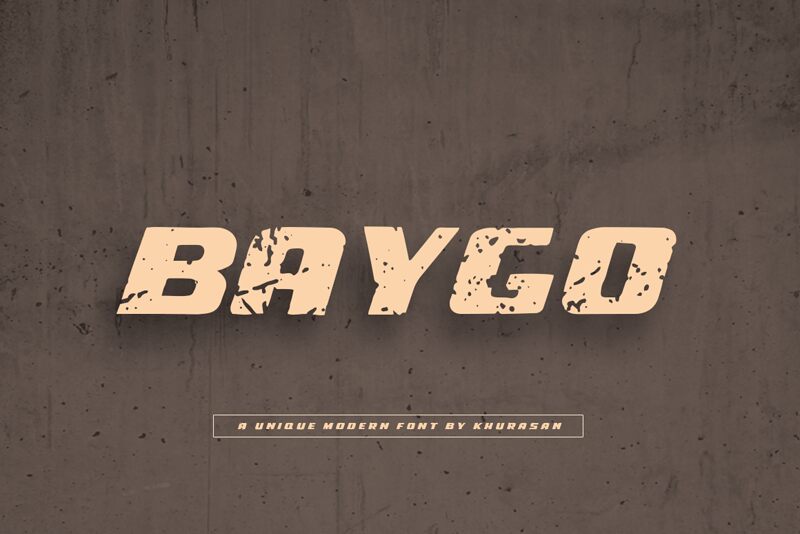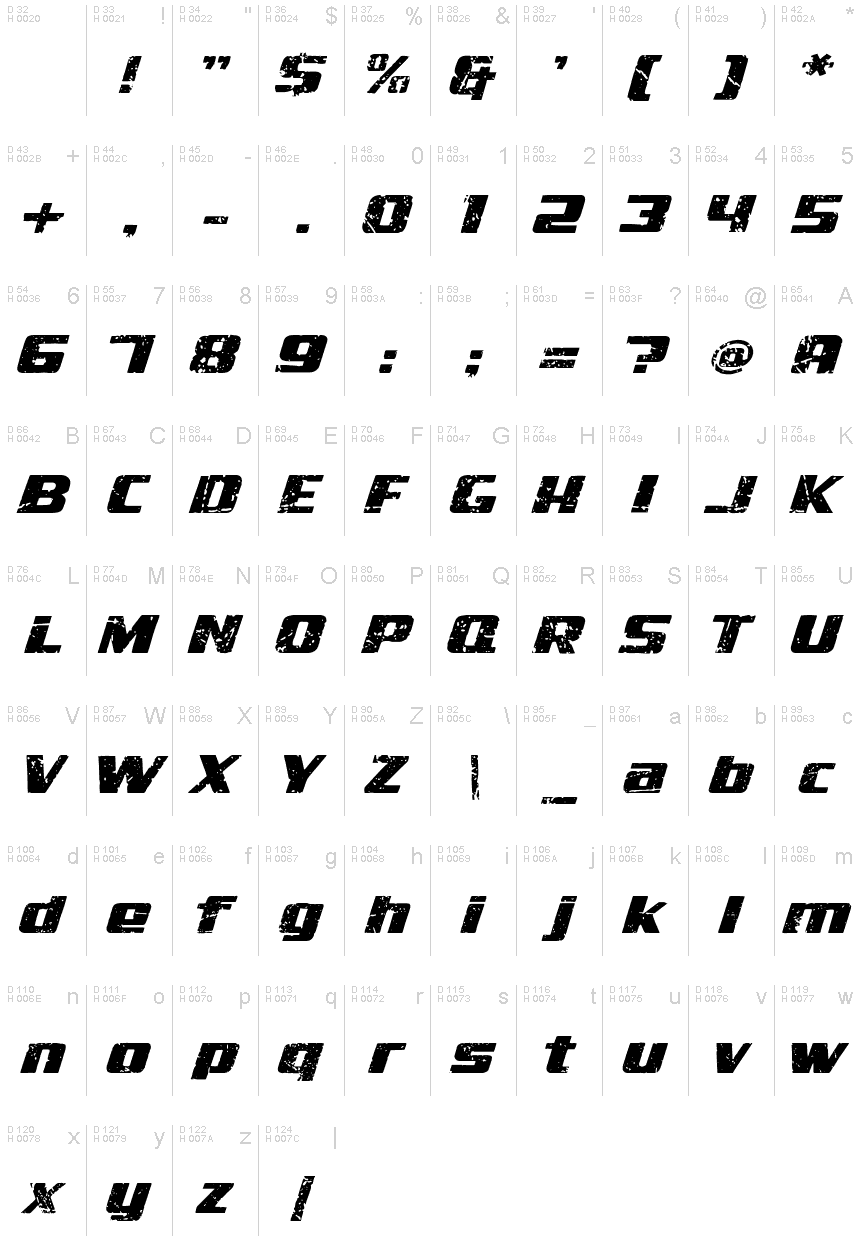
Baygo
Baygo by Khurasan emerges as an eroded, extra-bold display font that commands attention with its modern and bold sans serif silhouette. Crafted with a unique edge, this font stands out in a sea of sameness, bringing a touch of personality and quirkiness to your creative endeavors. Ideal for projects that demand visual impact—think posters that pop off the wall, logos that linger in the mind, magazine headlines that hook readers in or book covers that beg to be picked up.
Baygo's distinctive style marries the charm of handwritten artistry with the precision of digital design. Its versatility shines across various mediums; whether you're designing banners or branding materials, Baygo infuses your work with an unforgettable character. Incorporate this typeface into your designs and watch as it elevates them from ordinary to extraordinary!